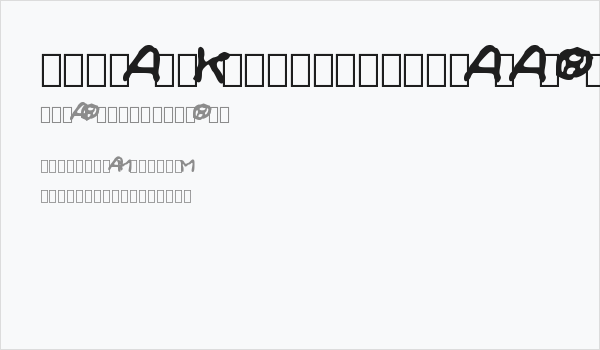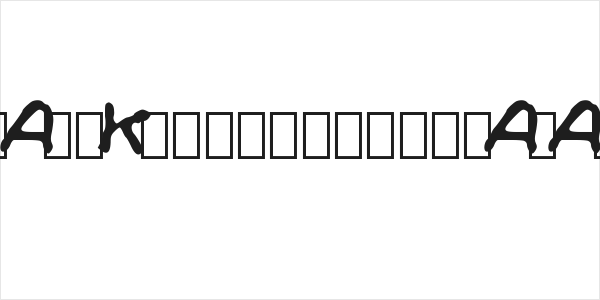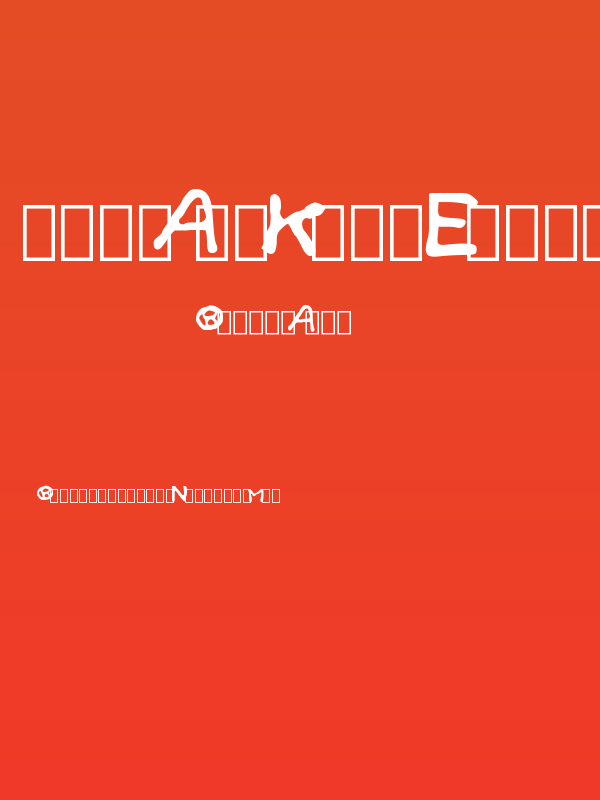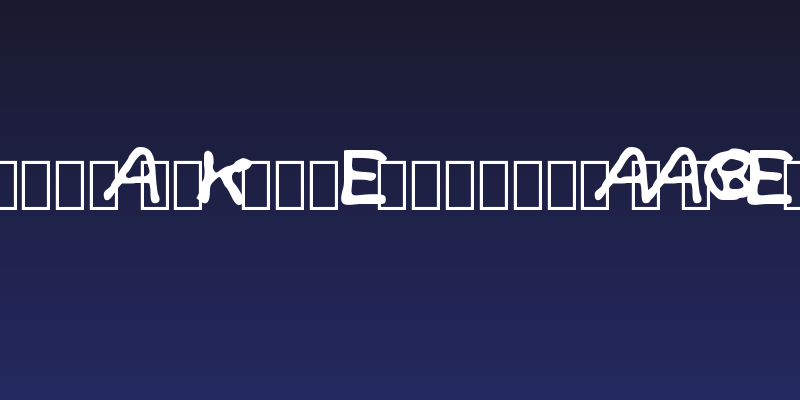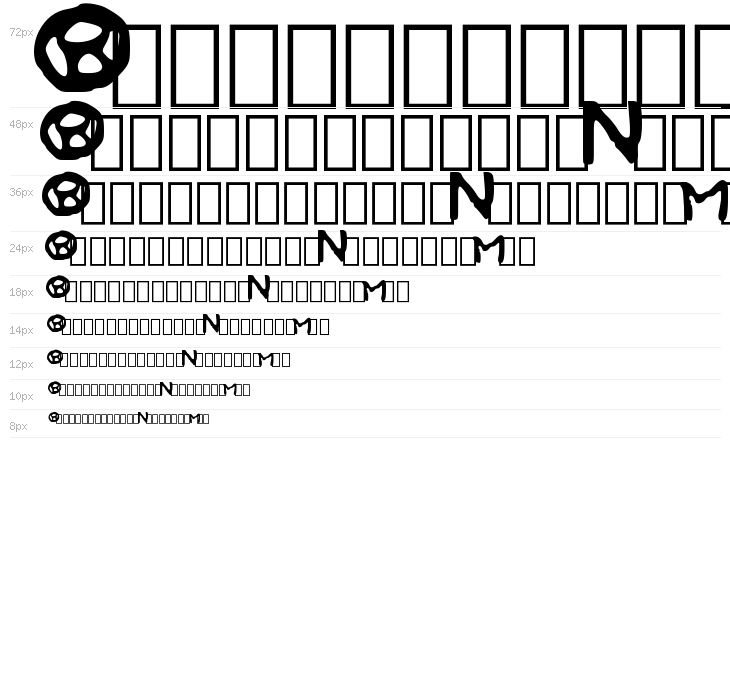
Zodiac Killer 13 character Font
Zodiac Killer 13 character Description
This image does not depict a valid font. The characters appear to be hand-drawn or part of a cipher, lacking consistent typographic features such as uniform stroke width, consistent character spacing, or defined serifs. The characters are irregular and do not form a cohesive typeface suitable for standard text applications.